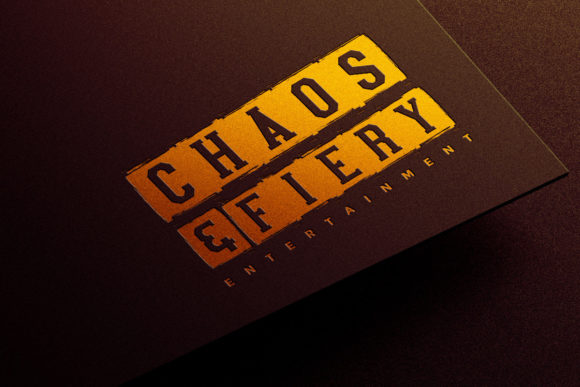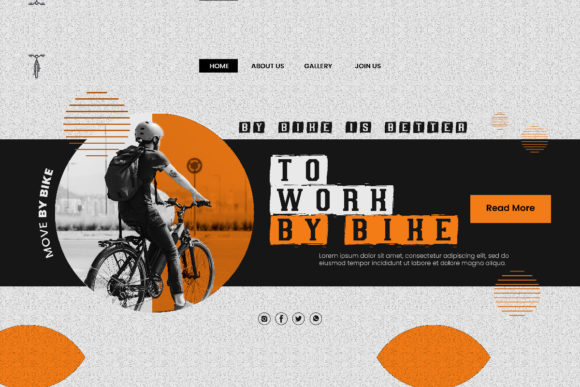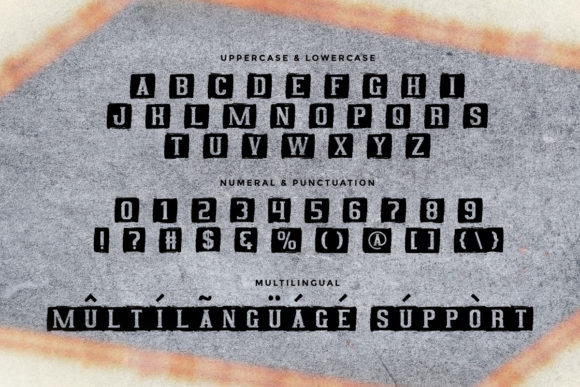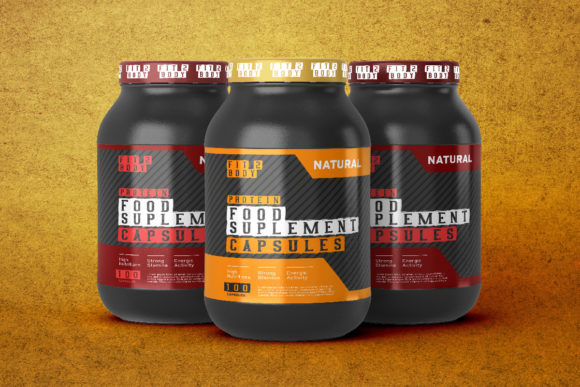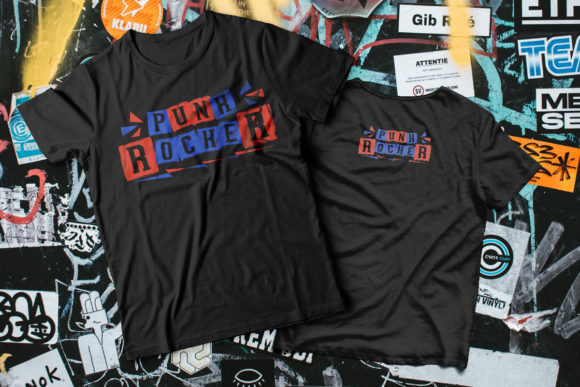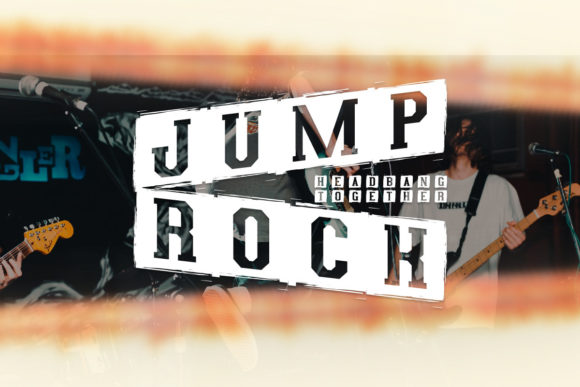
Introducing Crash Alert Font: The Ultimate Retro Display Font for Designers and Crafters
Are you tired of using the same old fonts in your designs? Look no further! Crash Alert Font is here to revolutionize your typography with its bold, retro, and cool display style. This stunning font is perfect for designers and crafters who want to add a touch of nostalgia and personality to their work.
What is Crash Alert Font?
Crash Alert Font is a bold display font that exudes a retro vibe, reminiscent of the 80s and 90s. Its unique design makes it perfect for creating eye-catching posters, flyers, and prints that demand attention. With its clean lines, bold shapes, and distinctive character, Crash Alert Font is sure to make your designs stand out from the crowd.
Key Features of Crash Alert Font
- Retro Style: Crash Alert Font boasts a classic retro look that’s perfect for designers who want to add a touch of nostalgia to their work.
- Bold and Eye-Catching: The font’s bold design ensures that your text will grab attention and make a lasting impression.
- Clean Lines: The font’s clean lines and shapes make it easy to read and understand, even at smaller sizes.
- Versatile: Crash Alert Font can be used for a wide range of design projects, from posters and flyers to prints and digital media.
Endless Possibilities with Crash Alert Font
With Crash Alert Font, the possibilities are endless! Here are just a few ideas to get you started:
- Posters and Flyers: Use Crash Alert Font to create stunning posters and flyers that will grab attention and leave a lasting impression.
- Branding and Logo Design: The font’s bold and retro style makes it perfect for creating unique and memorable logos and branding materials.
- Printmaking and Crafting: Crash Alert Font is perfect for crafters who want to add a touch of personality to their printmaking and crafting projects.
- Digital Media: The font can also be used for digital media, such as social media graphics, video titles, and more.
Why Choose Crash Alert Font?
So why choose Crash Alert Font over other fonts on the market? Here are just a few reasons:
- Unique Style: Crash Alert Font boasts a unique and distinctive style that’s sure to make your designs stand out.
- High-Quality Design: The font is designed to high-quality standards, ensuring that it will look great in any design.
In conclusion, Crash Alert Font is a must-have for designers and crafters who want to add a touch of personality and nostalgia to their work. With its bold, retro, and cool display style, this font is perfect for creating eye-catching posters, flyers, and prints. So why wait? Download Crash Alert Font today and explore its endless possibilities!